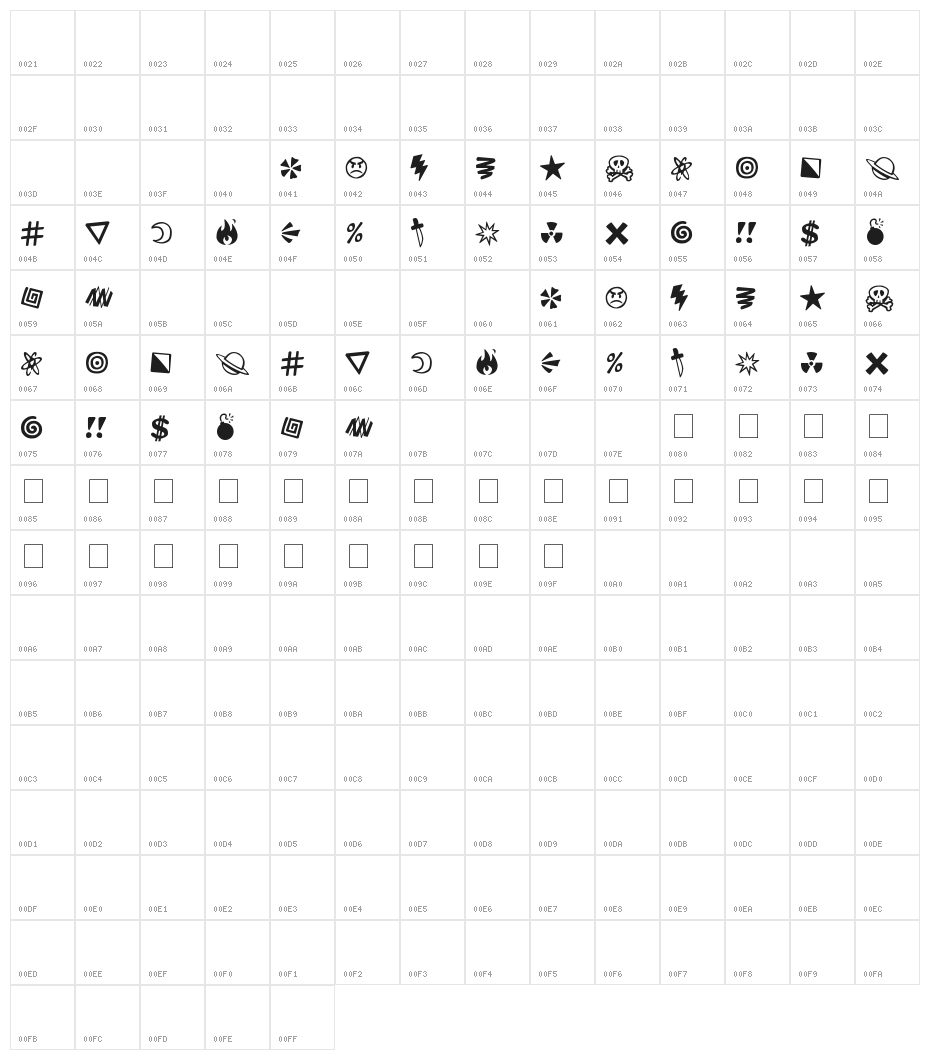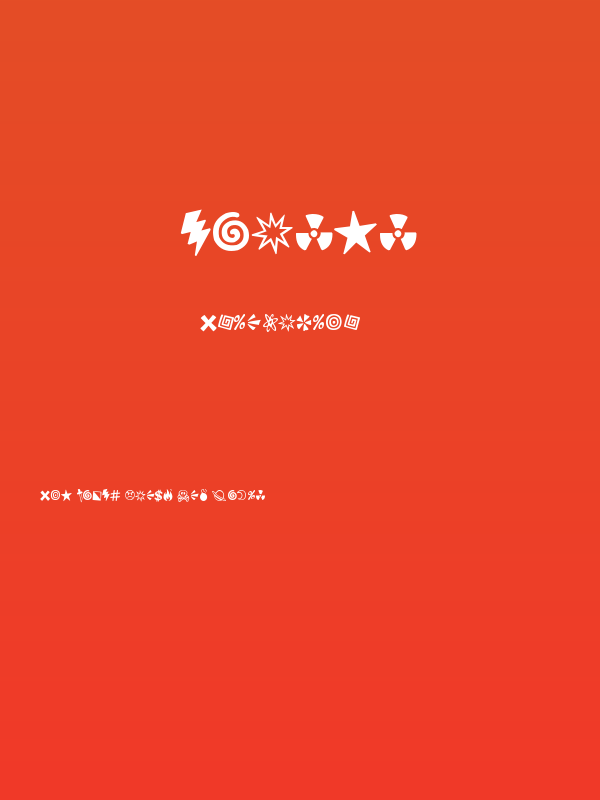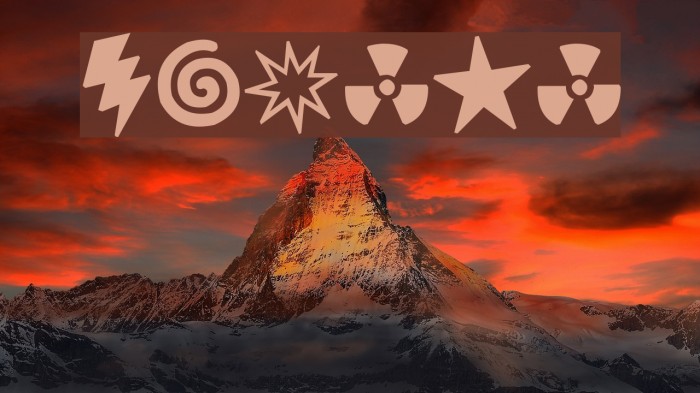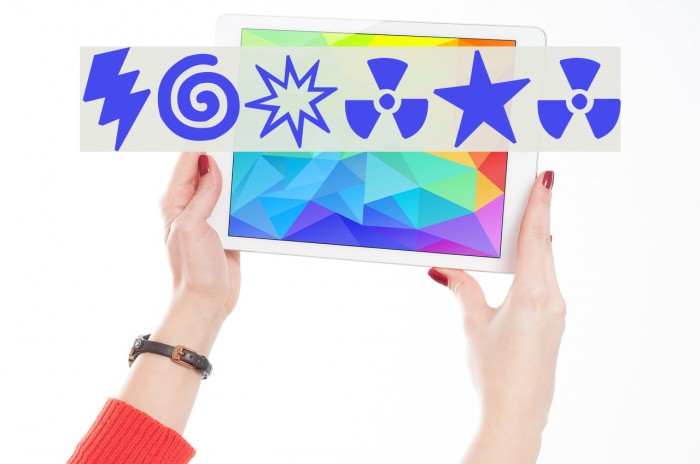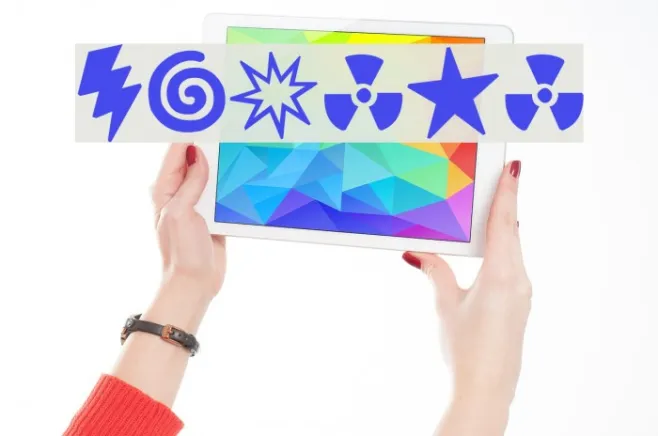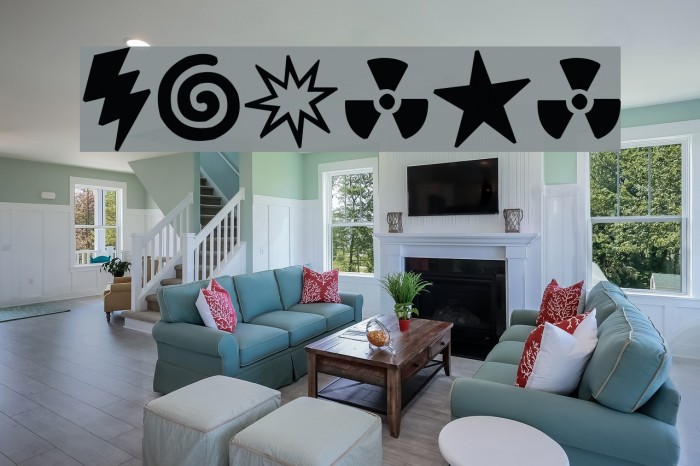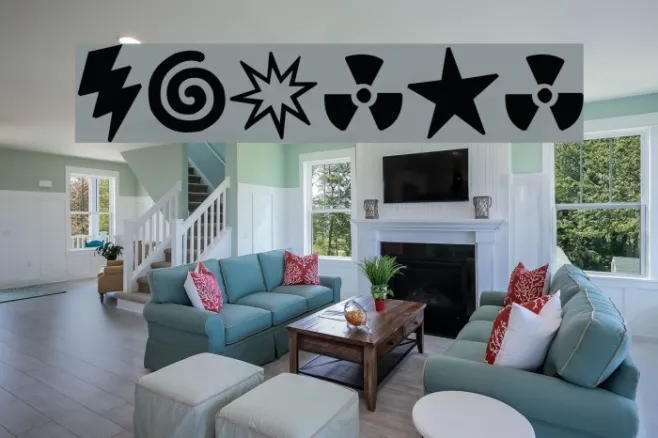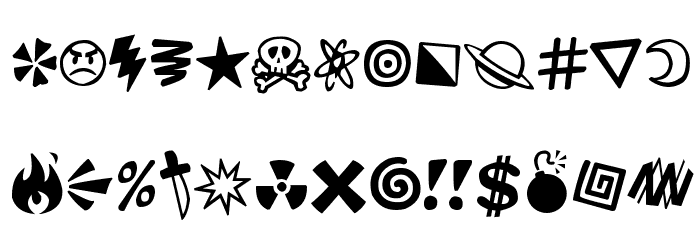
Curses Font
Curses Description
This collection of symbols features a bold and playful design, incorporating a variety of expressive and dynamic shapes. The symbols include emotive faces, stars, skulls, and abstract geometric forms, each rendered with thick, uniform strokes that create a strong visual impact. The style is reminiscent of comic book art, with exaggerated features and a sense of movement. The symbols are designed to convey emotion and action, making them ideal for use in graphic design projects that require a touch of whimsy or drama. The consistent line weight and boldness ensure that each symbol stands out clearly, even at smaller sizes.
| Overall Style | Playful, Comic |
| Use Case | Logos, Posters, Graphic Design |
| Proposed Projects | Ideal for comic books, graphic novels, playful branding, and dynamic posters. |